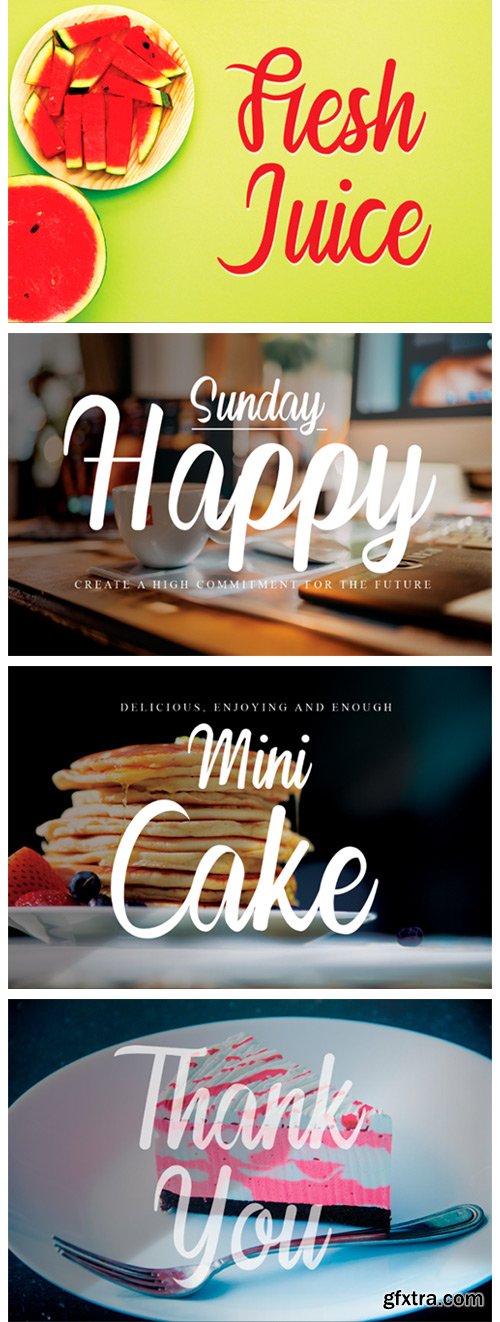
Fresh Juice Font
Fresh Juice is an elegant and distinct handwritten font. Fall in love with its incredibly versatile style and use it to create gorgeous wedding invitations, beautiful stationary art, eye-catching social media posts, and much more!